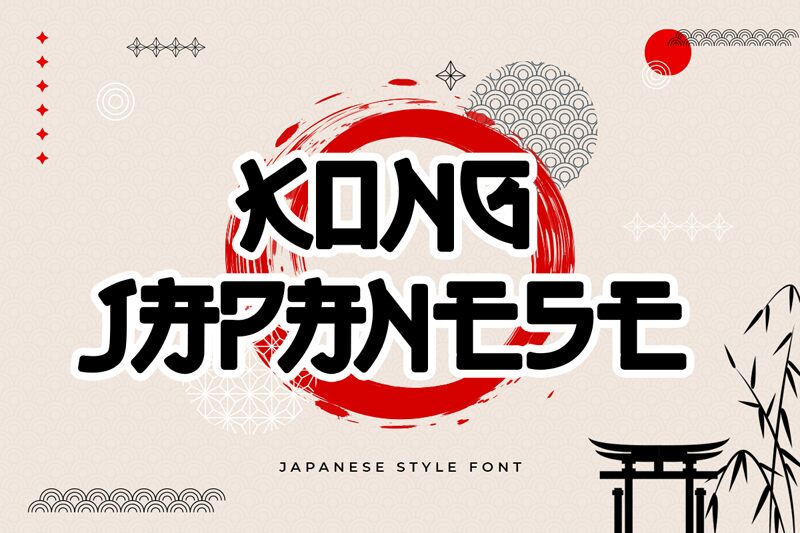
Kong Japanese font by Kong Font is a primitive-feel font with a cultural influence. Each character presents an unconventional appearance, an organic yet artistic feel, and a friendly textured presentation all around. This abstract collection with plenty of beautiful details is made to stun the world with your typography ideas.